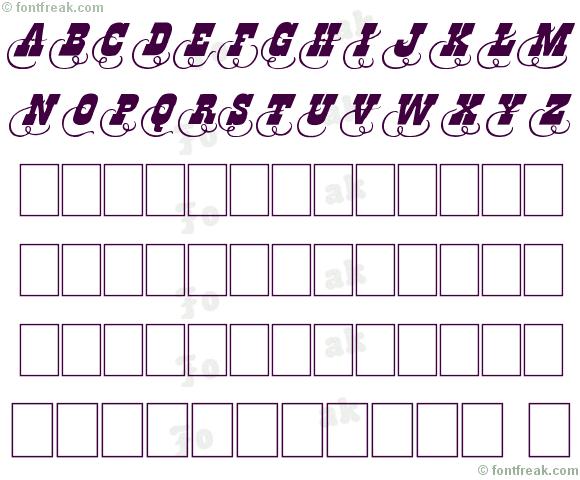
Dodge City Initials
About Dodge City
Dodge City by Renn Crump is a captivating display font that embodies the spirit of the Wild West with its bold, rustic character. Released in June 2002 as freeware, this typeface features a unique serif style that showcases strong, angular lines and exaggerated strokes. The visual characteristics of Dodge City include a medium to heavy stroke weight, which adds a sense of strength and presence, while the contrast between thick and thin lines gives it a dynamic appearance. The well-defined serifs and slightly condensed letterforms contribute to its readability, making it an excellent choice for various design applications.
This font excels in several specific use cases, making it a versatile addition to any designer's toolkit. It is particularly well-suited for creating vintage-themed wedding invitations, where its old-time flair can evoke a romantic, nostalgic atmosphere. Additionally, Dodge City is perfect for movie posters that aim to capture the essence of Western films, drawing attention with its rugged charm. Restaurant menus featuring hearty cuisine can benefit from this font's strong personality, while signage for local shops or events can use it to create a memorable visual identity.
Targeting graphic designers, small business owners, and content creators, Dodge City offers a distinctive way to convey messages that resonate with audiences. Its unique style and historical connotations make it appealing to anyone looking to add character to their projects.
What truly sets Dodge City apart is its ability to blend a sense of nostalgia with modern design elements, allowing for creative flexibility. Whether you are designing for print or digital media, the Dodge City font free download provides an opportunity to infuse your work with a sense of adventure and authenticity that few other typefaces can match.